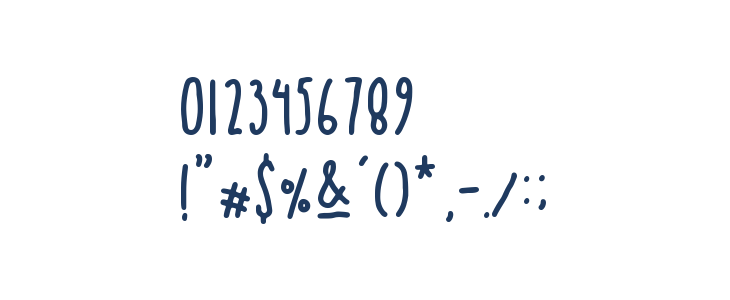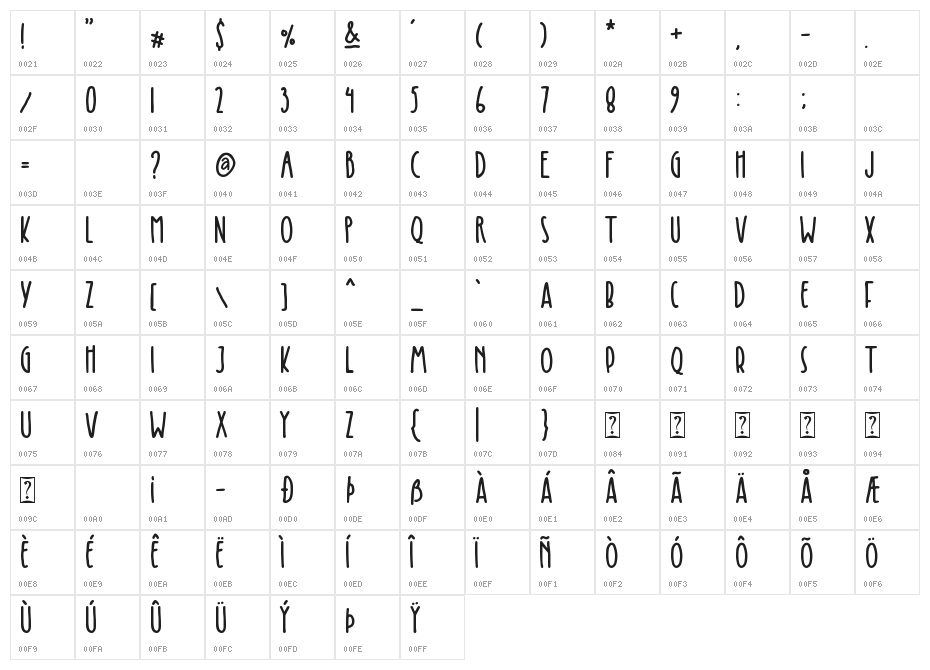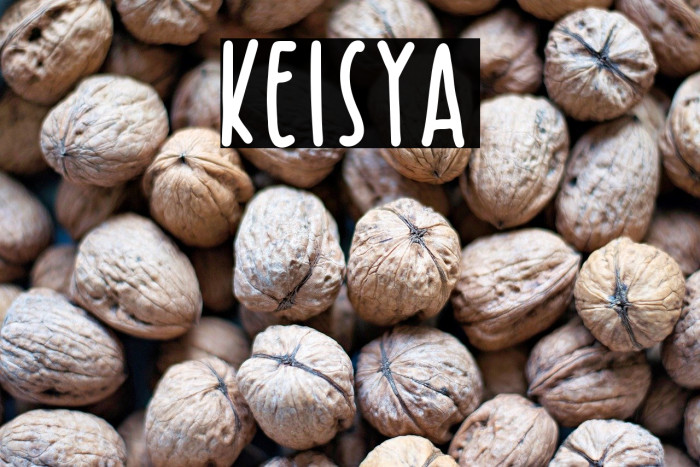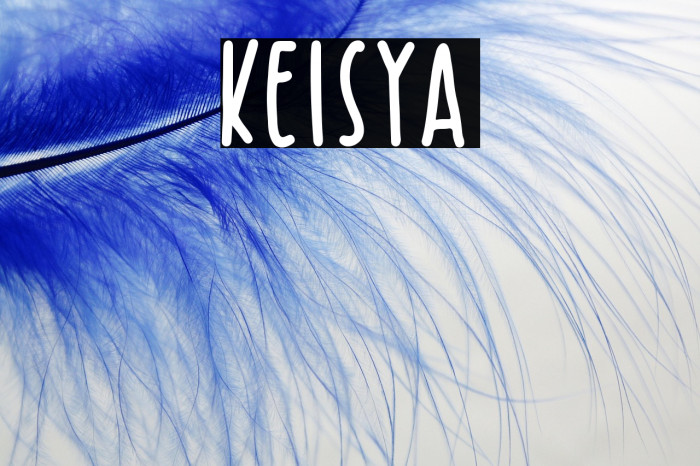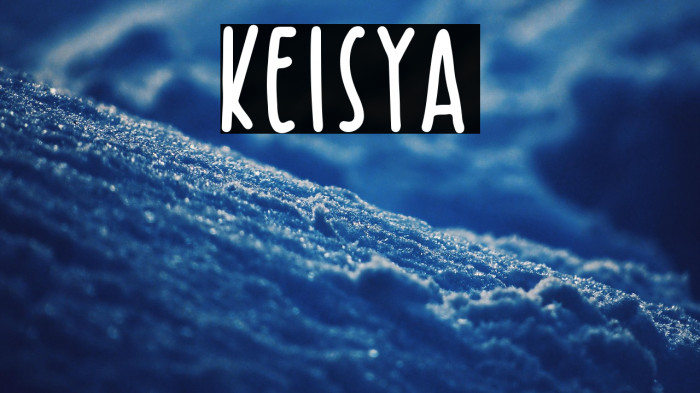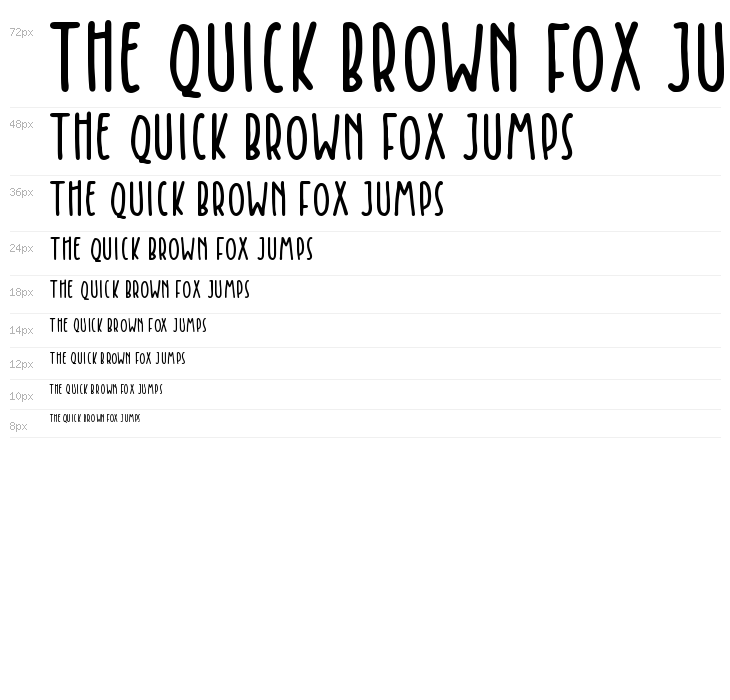
Keisya Font
Keisya Description
This font features a playful and casual handwritten style, characterized by its tall, narrow letters and slightly irregular strokes. The uppercase and lowercase letters maintain a consistent height, giving it a uniform appearance. The numbers and special characters follow the same playful aesthetic, making it suitable for informal and creative projects. The strokes are smooth and rounded, adding to the font's friendly and approachable feel. It's perfect for designs that require a personal touch, such as greeting cards, invitations, or children's book covers.
| Proposed Projects | Ideal for greeting cards, invitations, children's books, and creative branding. |